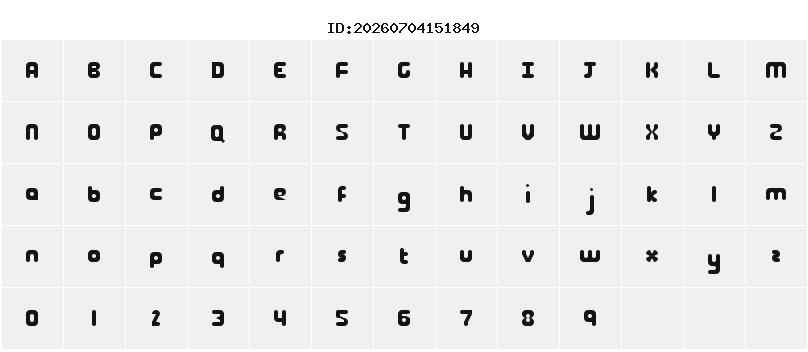
• Font Name: Dunno
• Full Font Name: Dunno Regular
• Designer: supermattyb
• Description: “Dunno” was built with FontStruct
About Dunno.ttf
Dunno.ttf is a modern, elegant sans-serif font designed for ultimate readability and visual harmony. Perfect for branding, headlines, web design, and print materials.